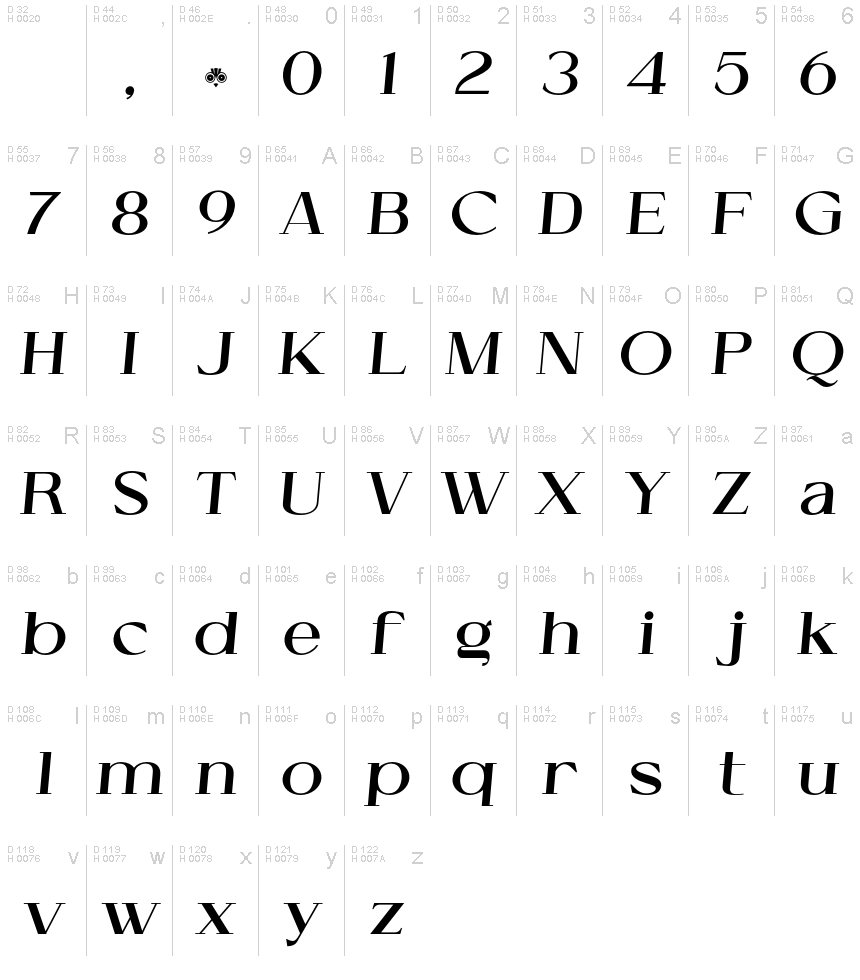
Cellofy-ExtBdSemExpIta
Cellofy ExtBd SemExp Ita font, part of the Cellofy family by Owlking Project, is a striking serif typeface known for its bold and semi-expanded design. With a graceful italic style, this free font merges classic elegance with contemporary flair. Its distinctive character makes it an excellent choice for headlines, branding, and editorial design where impact and readability are key.
Embrace the timeless allure of Cellofy ExtBd SemExp Ita to elevate your visual storytelling effortlessly!
Cellofy ExtBd SemExp Ita
OWLKING PROJECT
Cellofy
Extra Bold Semi Expanded Italic